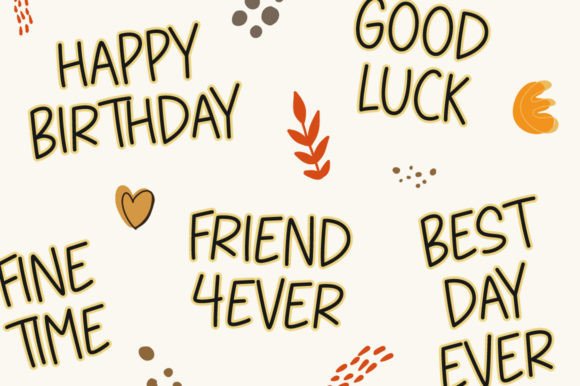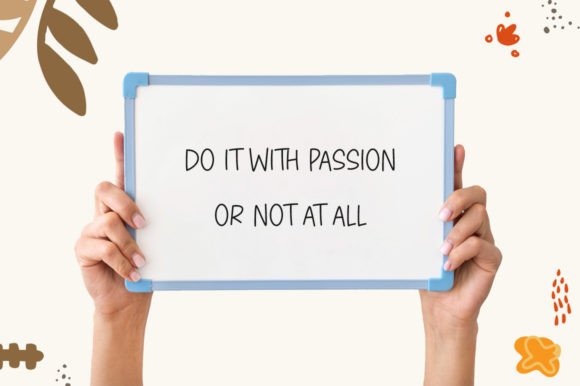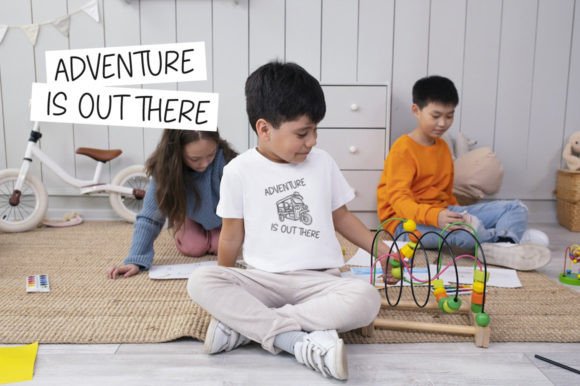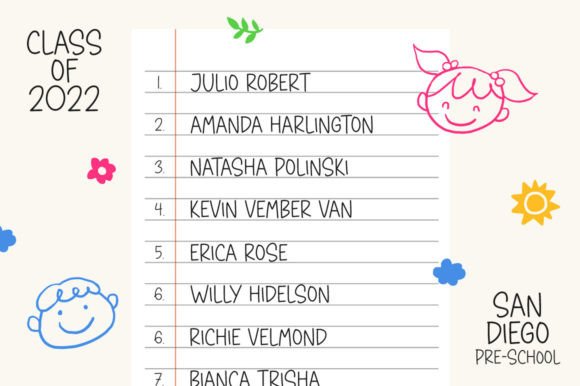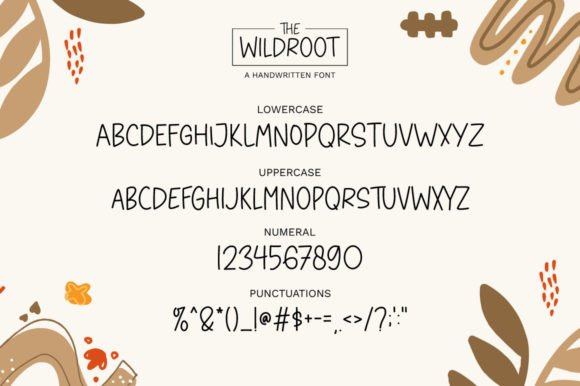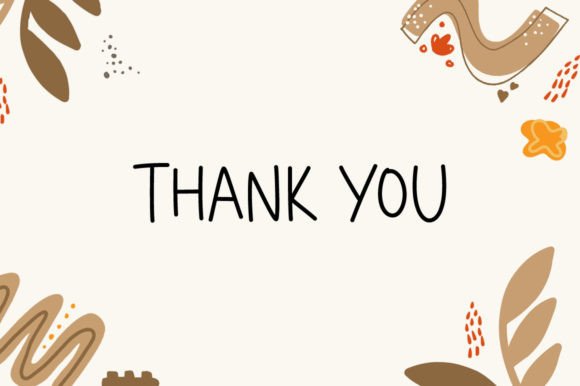
The Wildroot Font
About The Wildroot Font
“The Wildroot” is a cute and simple-lettered handwritten font that lends itself perfectly to creating chalkboard quotes and teaching materials. This font captures an authentic and personalized look, adding a touch of realism and charm to your designs.
The key characteristics of “The Wildroot” are its simplicity and authenticity. Its handwritten style evokes a sense of genuine, handcrafted lettering, making it an ideal choice for projects that aim to create a personal and down-to-earth feel.
Imagine using “The Wildroot” to design educational materials, such as chalkboard-style lesson plans or worksheets, for a warm and inviting learning experience. Visualize incorporating this font into motivational quotes or signage to convey a friendly and approachable message. “The Wildroot” can also enhance your creative projects, whether you’re designing invitations, posters, or any materials that require a touch of charm and authenticity.
In conclusion, “The Wildroot” is more than just a font; it’s a design resource that brings simplicity and authenticity to your creative work. Its handwritten style makes it versatile for various design applications where a personal and realistic look is desired. Embrace “The Wildroot” as a font that enhances your designs and adds a genuine and charming touch to your projects, making them more inviting and relatable.